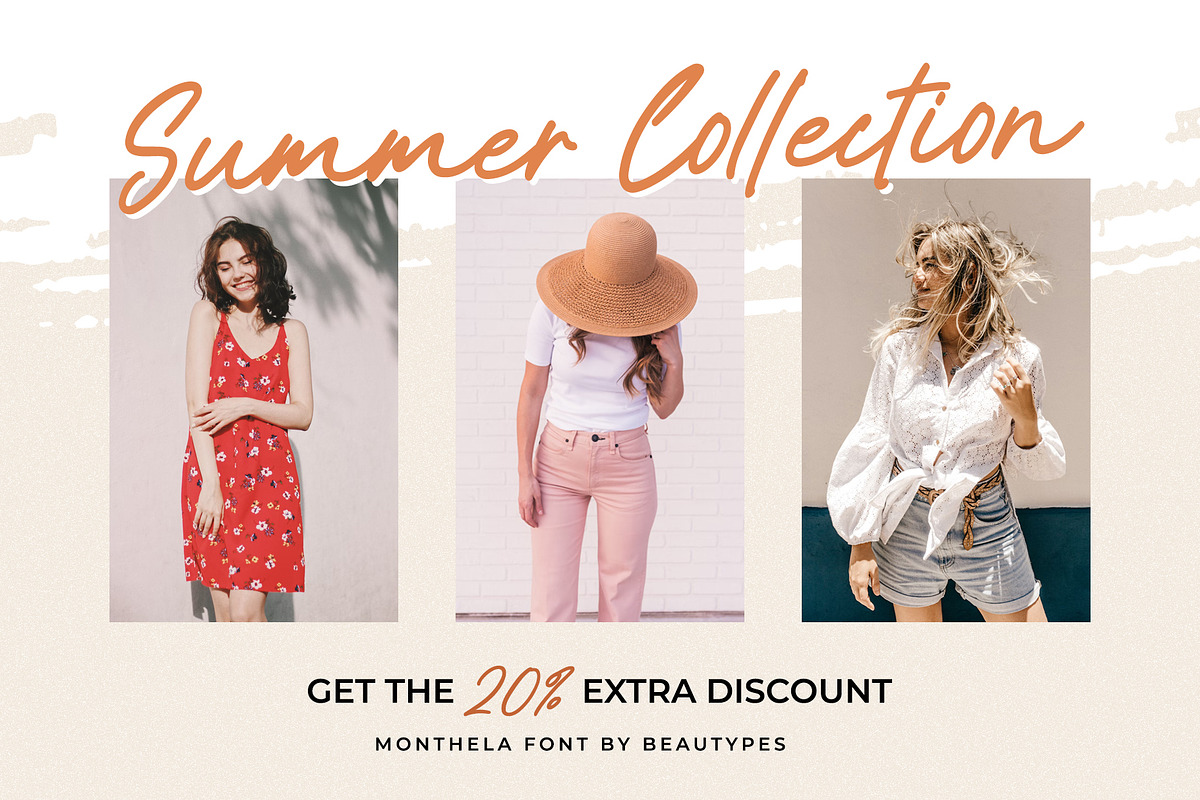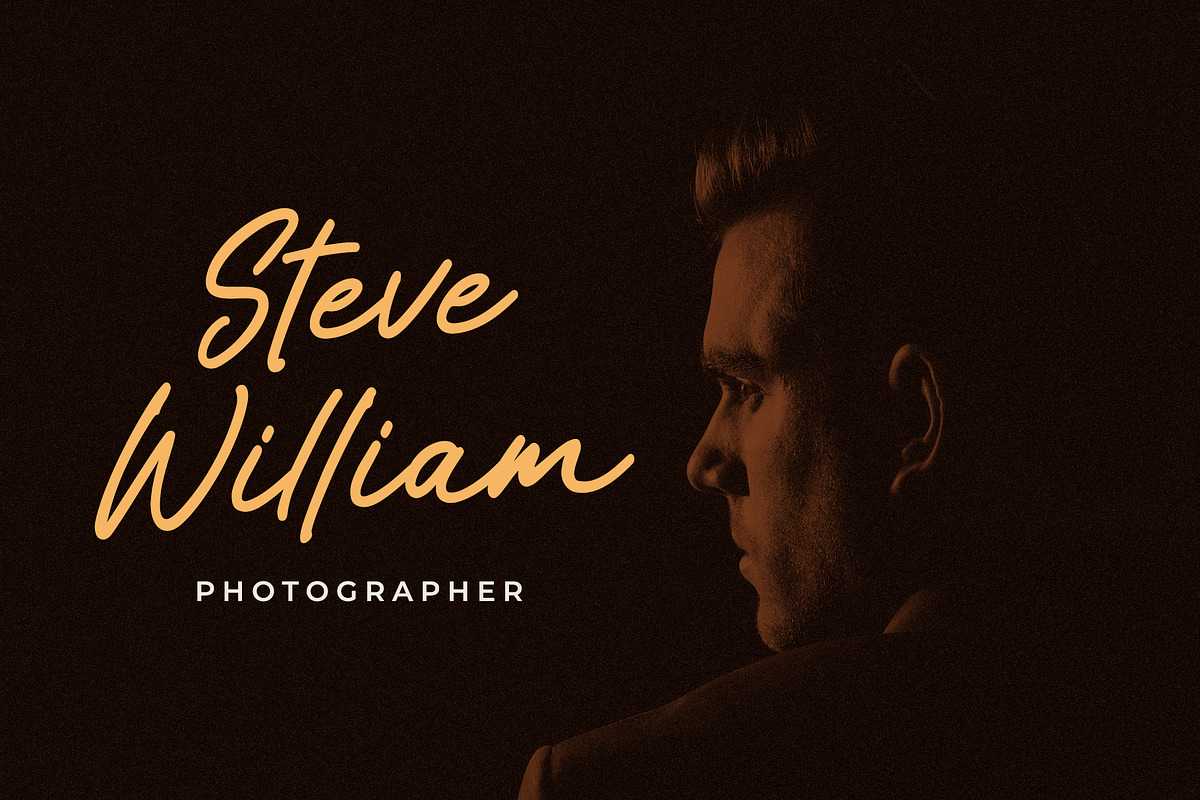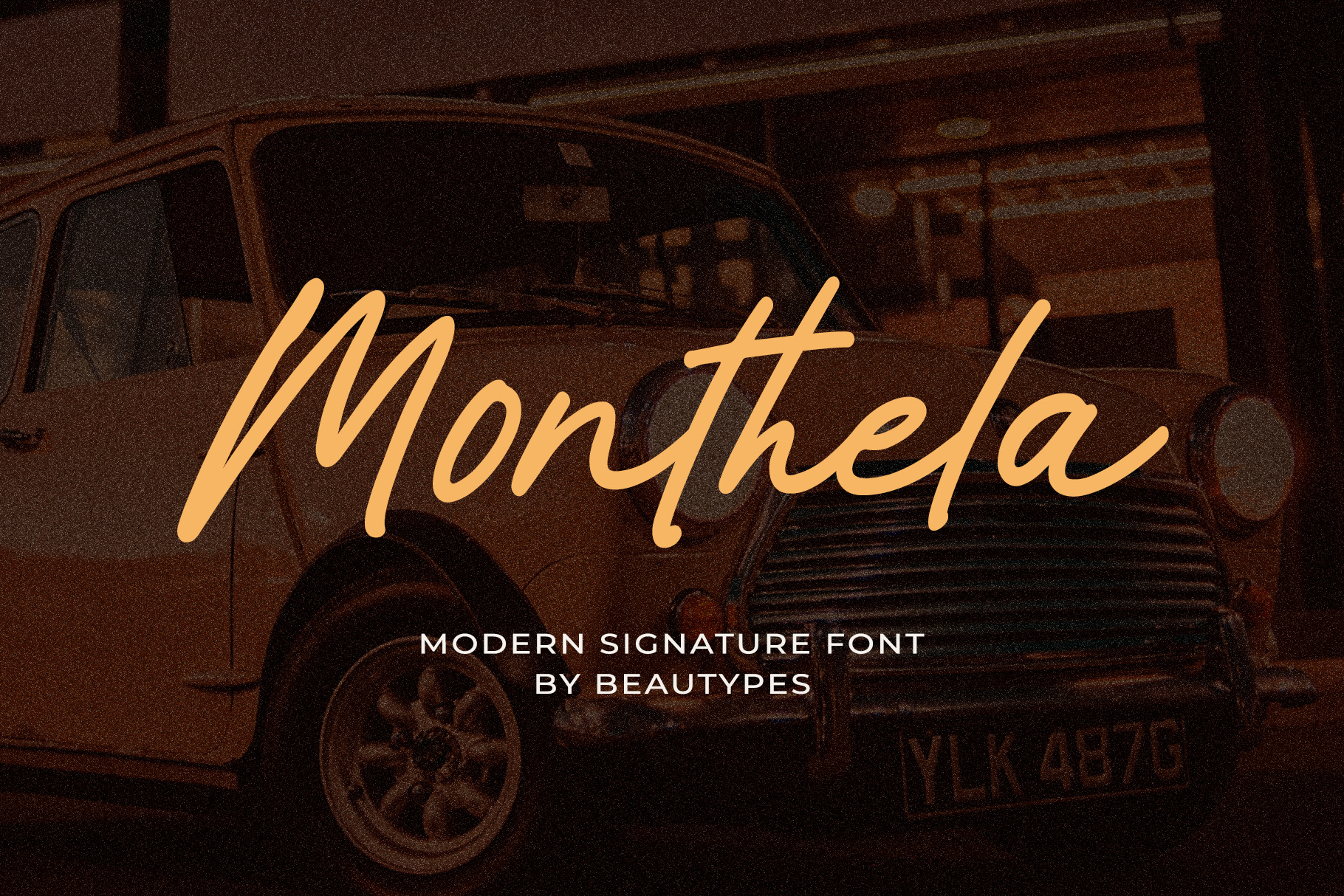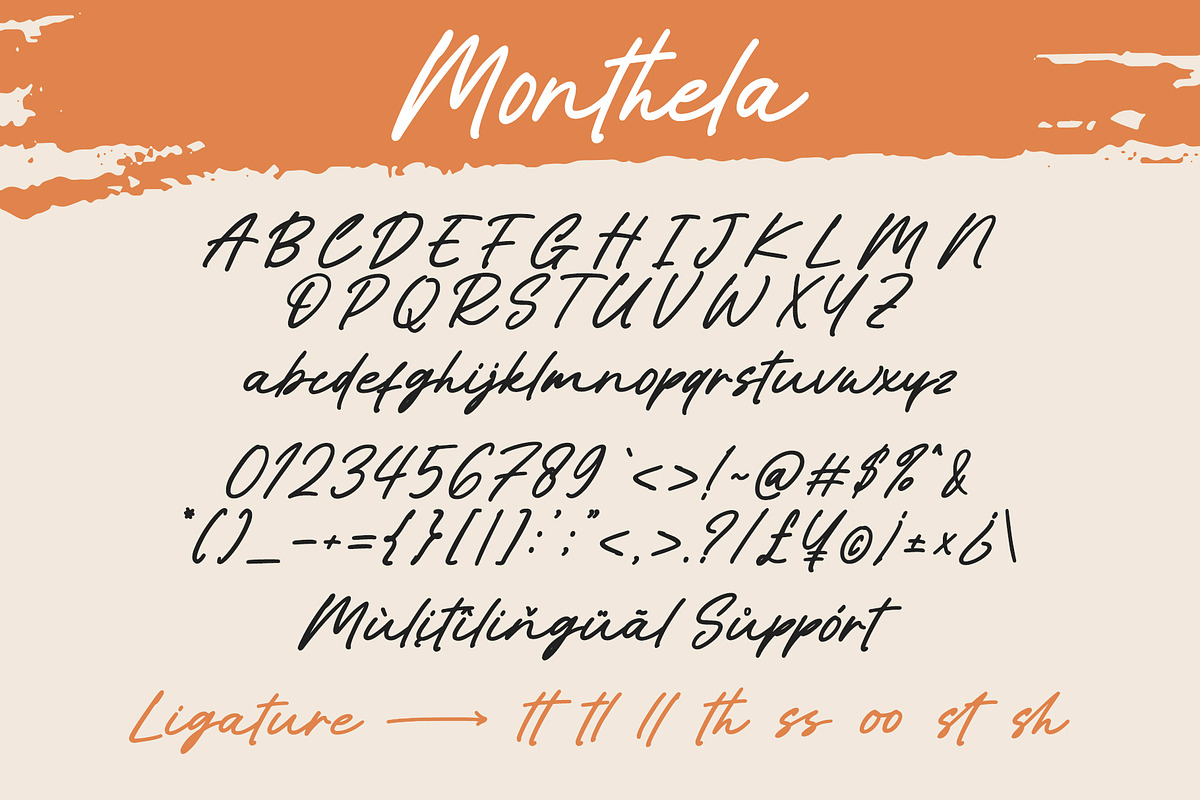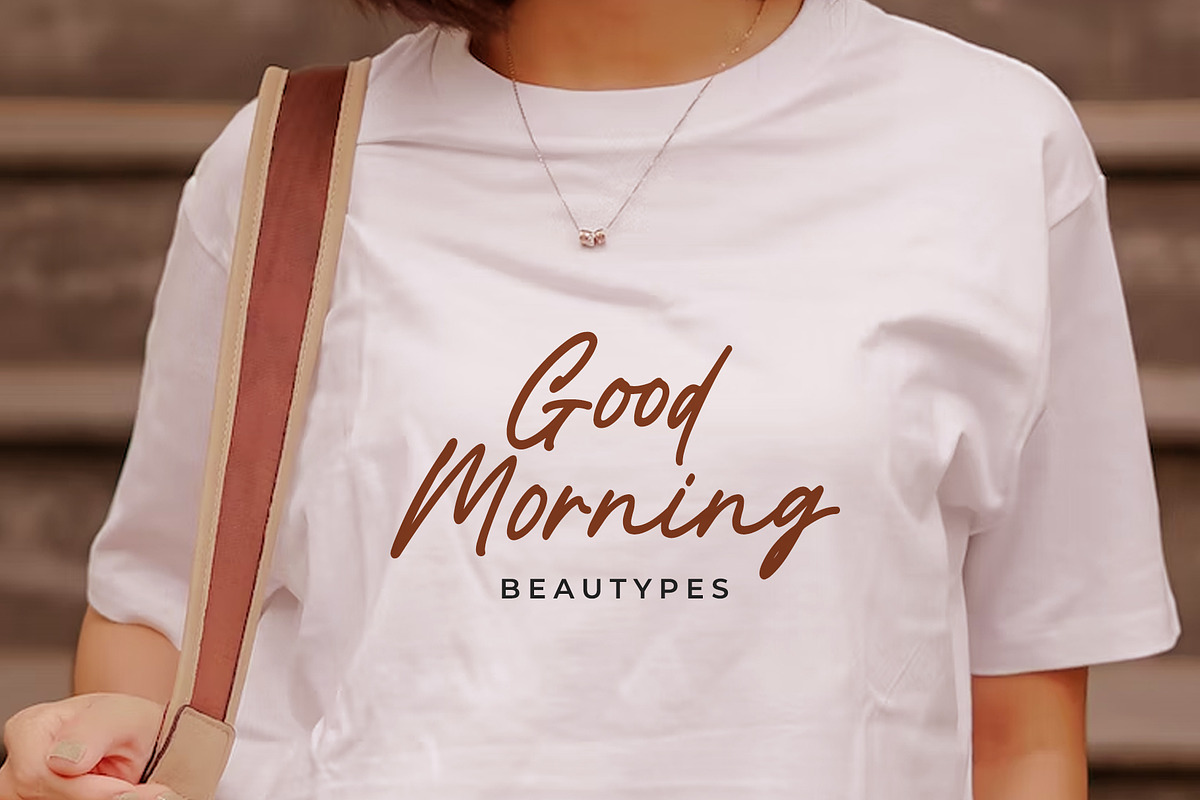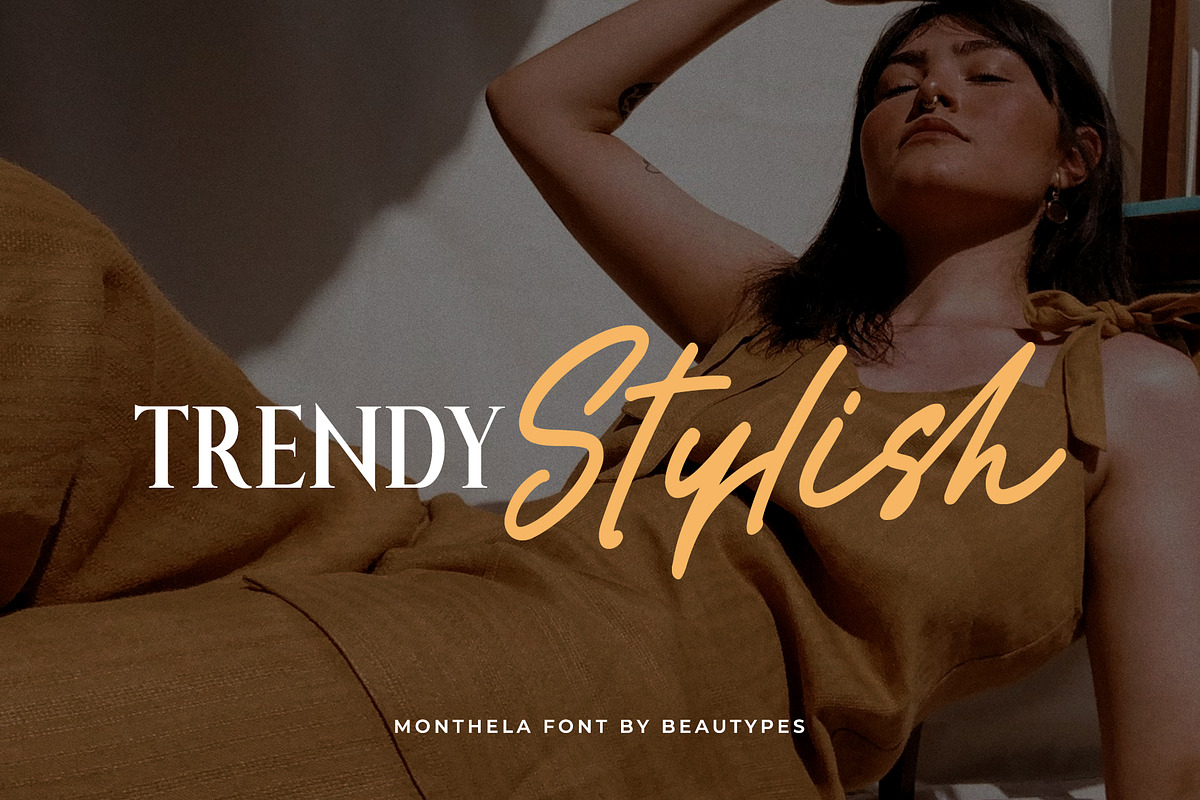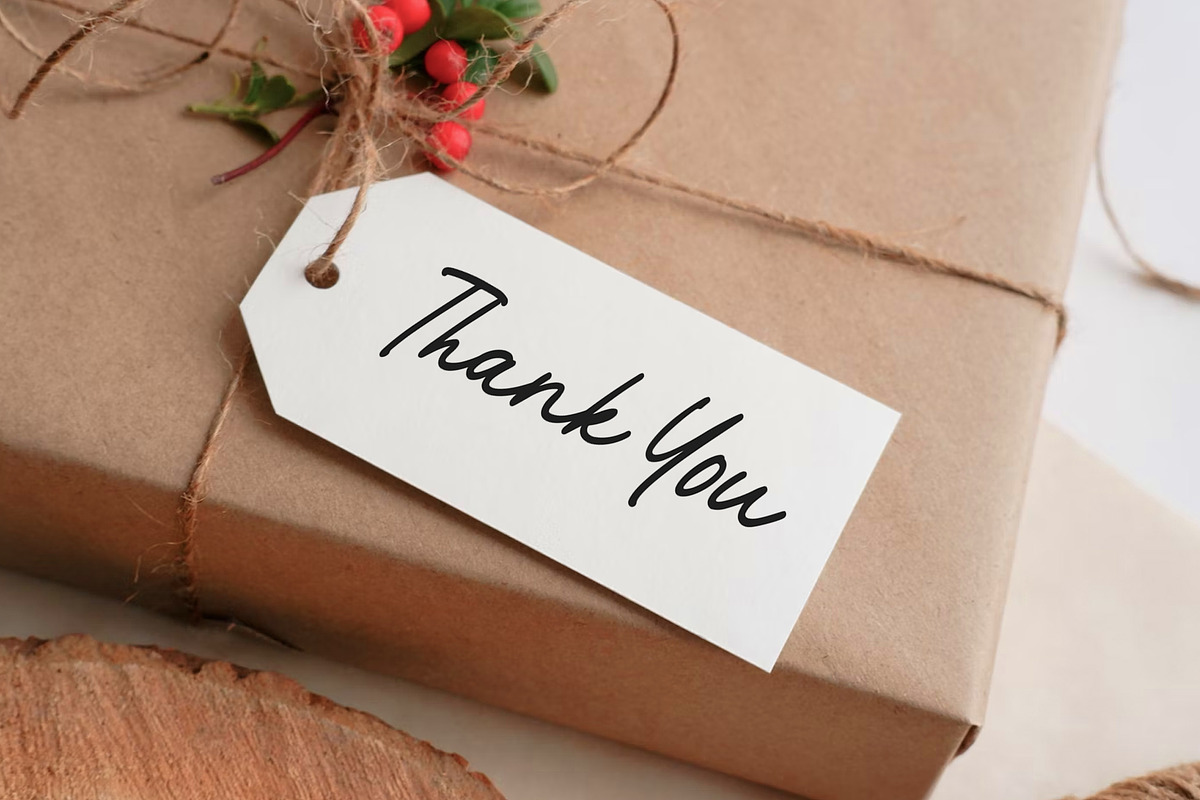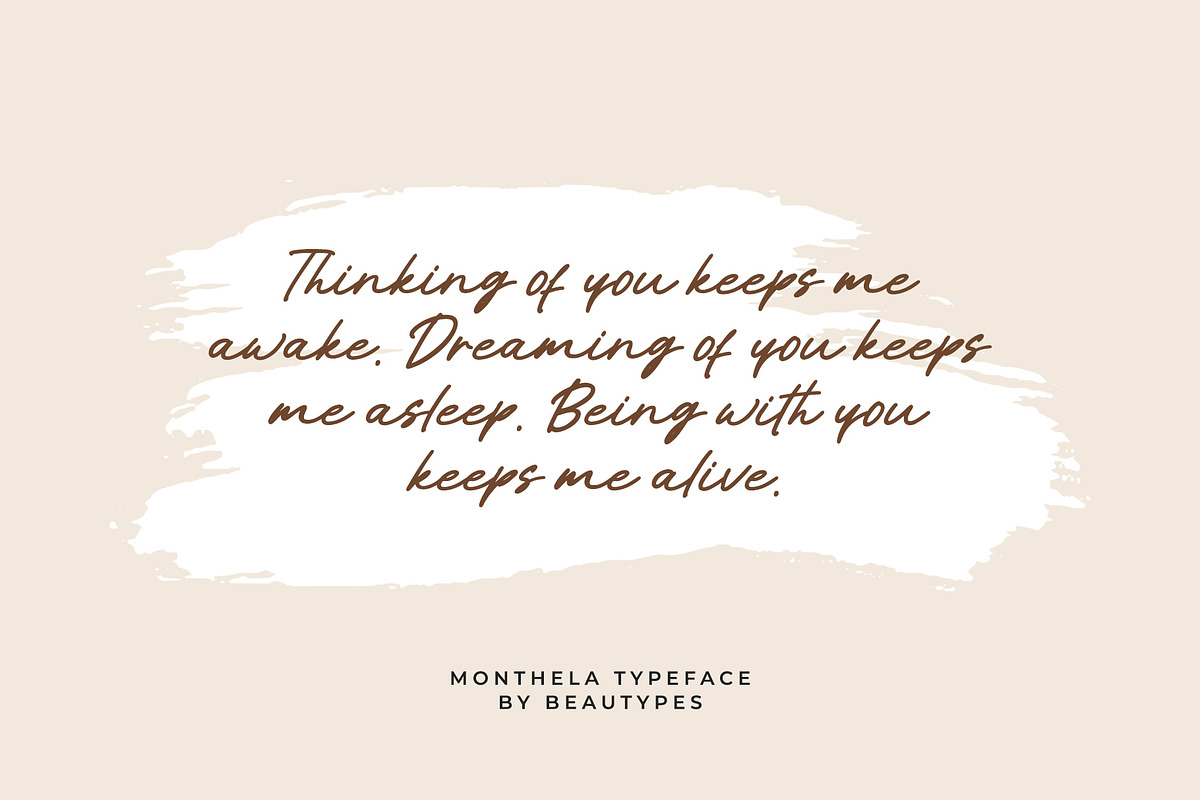
Monthela - Modern Signature Font
Monthela is a modern handwritten font, described by an elegant touch, perfect for your favorite projects. It looks stunning on wedding invitations, business cards, quotes, thank you cards, greeting cards, Branding, logos, magazine, marketing materials and every other design which needs a handwritten touch.